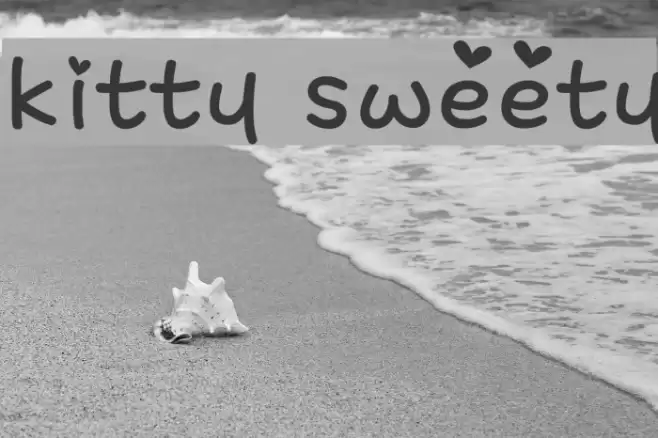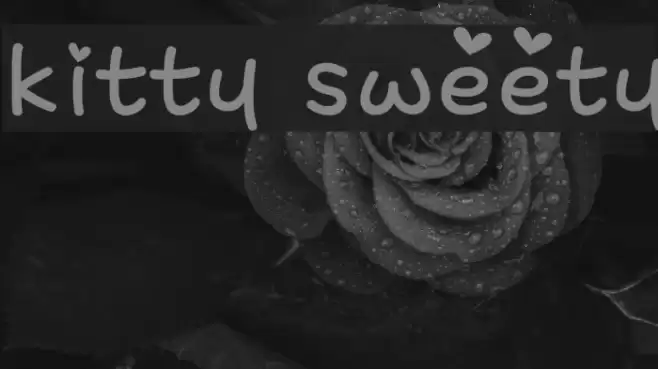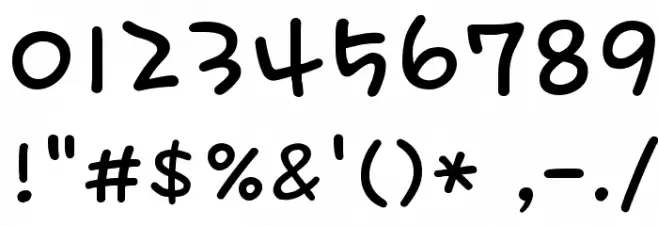
kitty sweety Font
kitty sweety Description
This playful and whimsical font features a unique design with heart-shaped accents on certain characters, adding a touch of charm and fun. The letters are rounded and slightly irregular, giving them a hand-drawn appearance that is both approachable and friendly. The font includes both uppercase and lowercase letters, numerals, and a variety of special characters. Its informal style makes it ideal for projects that aim to convey warmth and creativity.
A playful, heart-accented font with a hand-drawn, whimsical style from Uncategorized fonts.
- Proposed Projects: Ideal for children's books, greeting cards, playful branding, and creative invitations.
- Overall Style: Whimsical
- Use Case: Headlines, Logos, Invitations